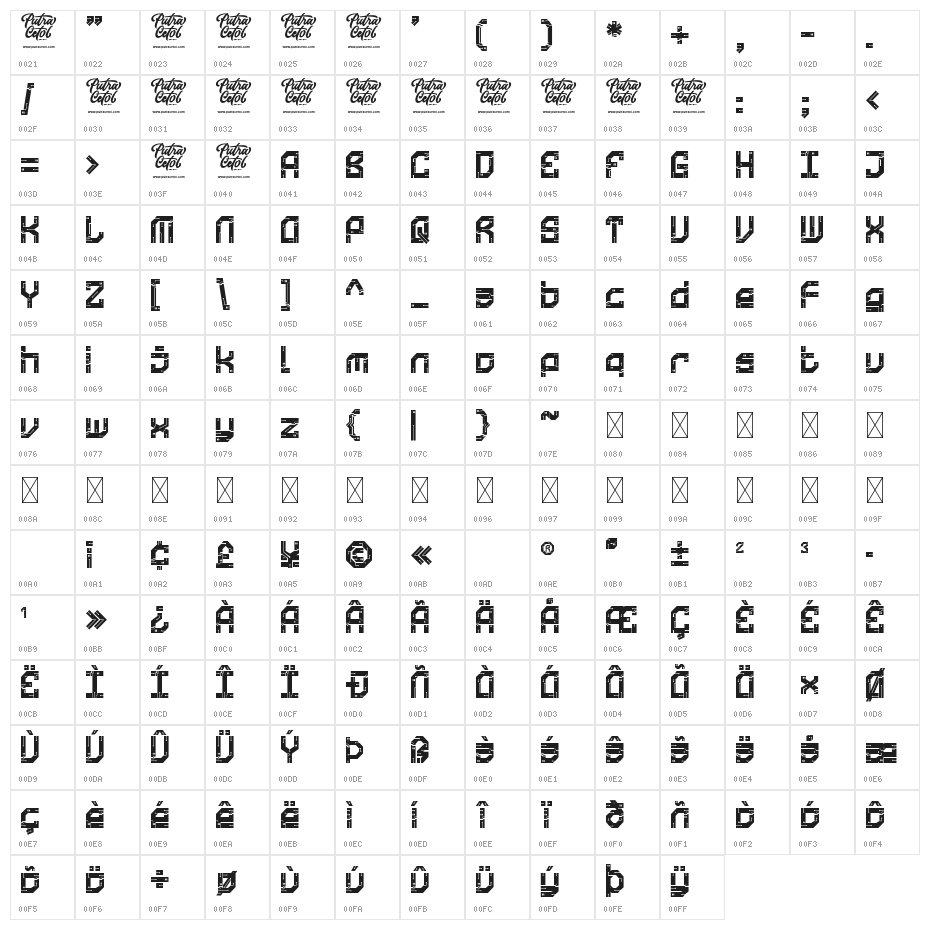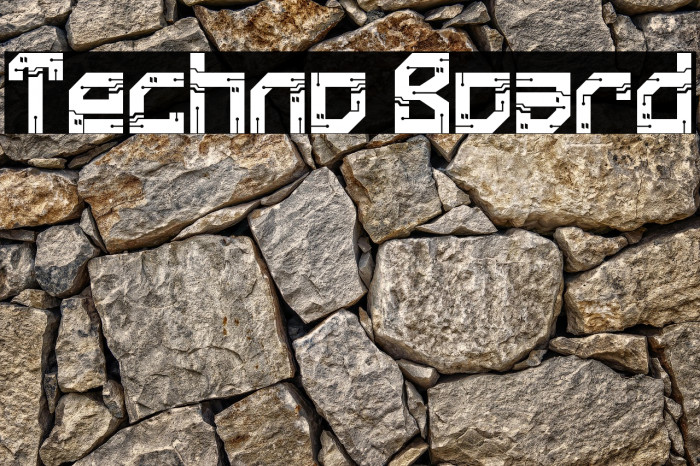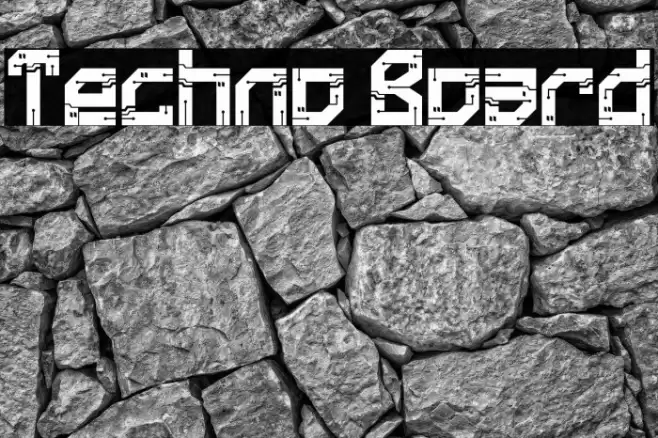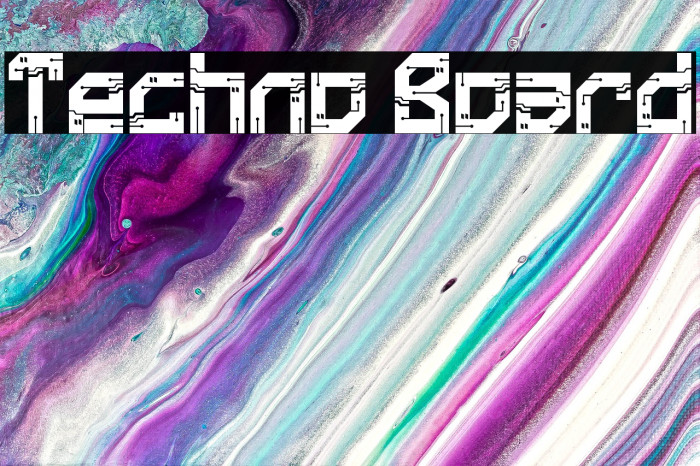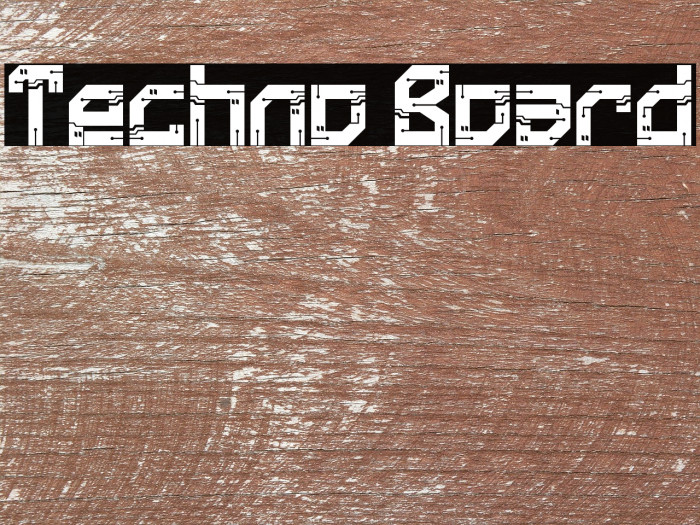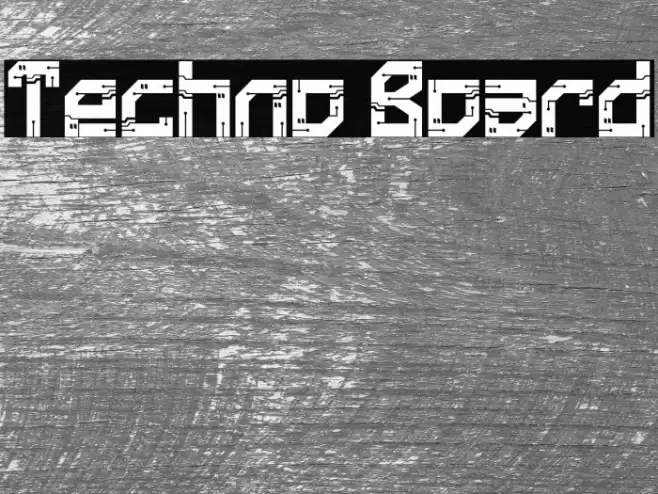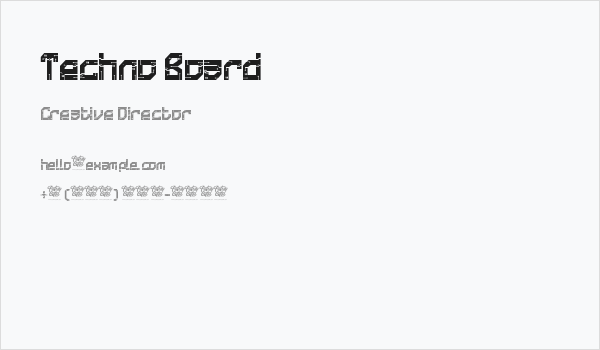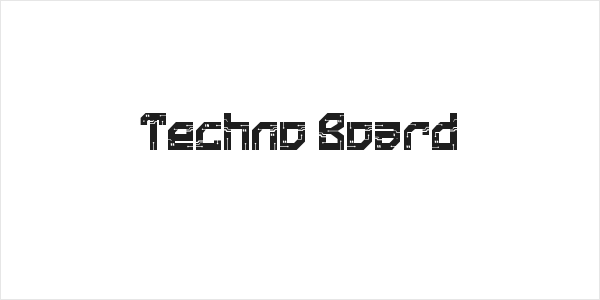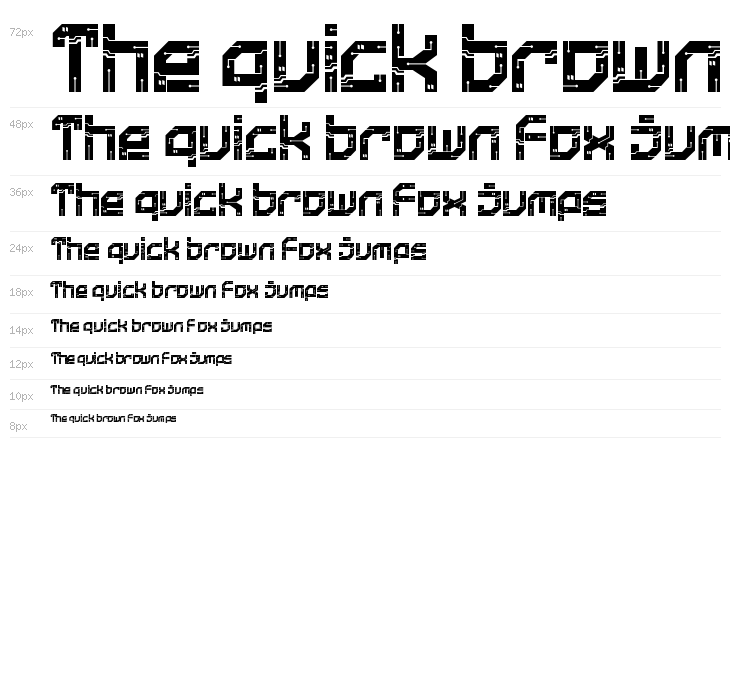
Techno Board Font
Techno Board Description
This font features a futuristic and digital aesthetic, characterized by its bold, geometric shapes and intricate patterns within each letterform. The design incorporates elements reminiscent of circuit boards, giving it a high-tech, modern feel. The uppercase and lowercase letters maintain a consistent style, with sharp angles and a blocky appearance. The numerals and special characters follow the same design principles, ensuring a cohesive look across all glyphs. This font is ideal for projects that require a technological or sci-fi theme, offering a unique and eye-catching visual impact.
| Proposed Projects | Ideal for tech branding, sci-fi posters, video game titles, and digital media. |